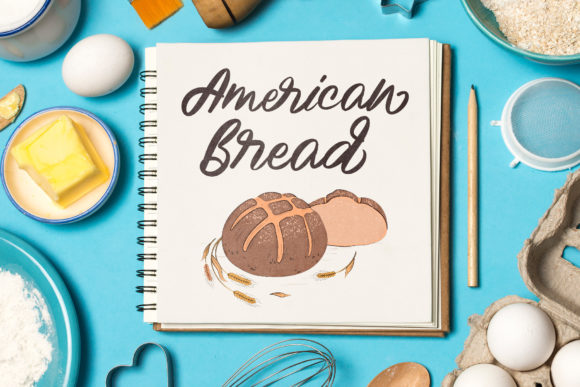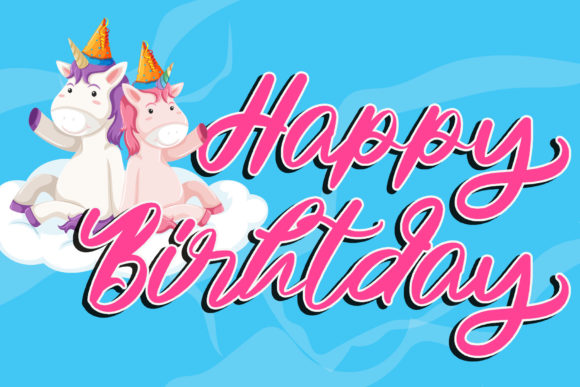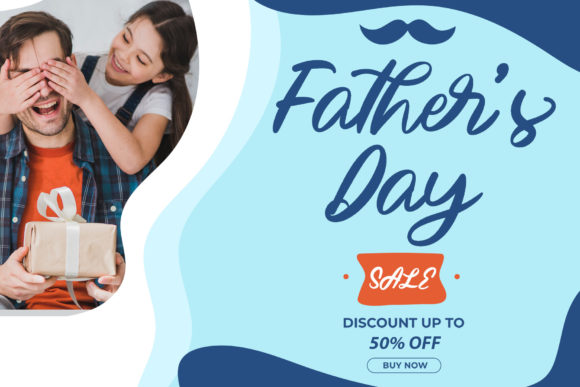
About Thanks Summer Font
Thanks Summer is a fresh and sweet handwritten font. Its casual charm makes it appear wonderfully down-to-earth, readable, and, ultimately, incredibly versatile. Thanks Summer is PUA encoded which means you can access all of the glyphs and swashes with ease!